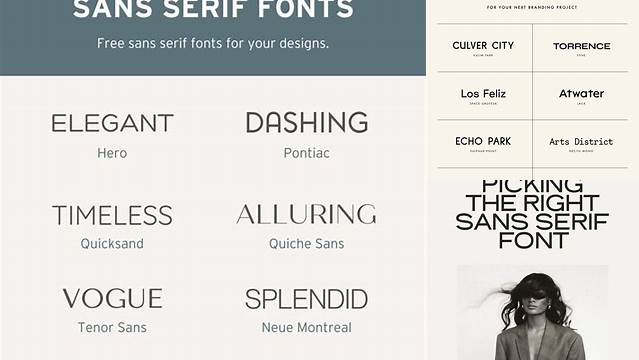
Free Sans Serif Fonts: Your Ultimate Guide
Hey guys! Are you looking to jazz up your designs with some fresh fonts? Then you're in the right place! We're diving deep into the world of free sans serif fonts, the unsung heroes of the typography world. They're clean, versatile, and perfect for almost any project you can imagine. From websites and presentations to logos and print materials, a good sans serif font can make all the difference. Let's get this party started and explore everything you need to know!
Why Sans Serif? Unveiling the Power of Modern Typography
So, why all the hype about sans serif fonts? Well, for starters, theyâre incredibly modern and sleek. Unlike their serif cousins (think fonts with those little decorative strokes at the ends of letters), sans serifs boast a clean, straightforward look. This makes them super readable, especially on screens. In today's digital age, that's a HUGE deal. Think about it: how often do you scroll through websites, read emails, or check your social media? The readability of the font directly impacts the user experience. A cluttered, hard-to-read font will send people running, while a clear, concise sans serif will keep them engaged.
Sans serif fonts also scream versatility. They work beautifully in a wide range of applications. Need a font for a minimalist logo? A sans serif is your best friend. Creating a website with a modern aesthetic? Sans serif again. Designing a presentation that needs to be easily digestible? You guessed it! Their adaptability makes them a go-to choice for designers of all stripes. But the beauty of sans serif fonts goes beyond just aesthetics and usefulness. These fonts are often seen as more approachable and friendly. Because of their lack of serifs, they tend to appear less formal, making them ideal for brands that want to connect with their audience on a more personal level. They are about simplicity, clarity, and modernity. A good sans serif font will never let you down whether you're working on a corporate identity, a marketing campaign, or even just a personal project, and this makes them incredibly valuable. When used correctly, these fonts can instantly make your message feel more contemporary and user-friendly, helping you connect with your audience. But there is also something to be said about the flexibility of them, they can be styled with bold, italics, or other text effects and still be very easy to read.
Top Free Sans Serif Fonts to Elevate Your Designs
Alright, now for the good stuff! Let's explore some of the best free sans serif fonts out there. These fonts are not only free but also incredibly stylish and versatile, making them perfect for a variety of projects. We'll cover some of the most popular and reliable options, giving you the lowdown on what makes each one special. Let's get to it!
Open Sans
Open Sans is a true titan in the font world. Designed by Steve Matteson, this font is Google's official font, meaning you'll see it everywhere. Itâs known for its friendly and open appearance, making it a great choice for body text. Its excellent readability makes it ideal for websites, documents, and apps. The font is also highly versatile; it can be used for both headlines and smaller text sizes. The curves are very simple and clear. This also means that the shapes are neutral enough to be used in conjunction with a wide range of design styles. Its popularity has only grown over time, making it one of the best options to use. Open Sans is one of the most ubiquitous sans serif fonts out there, and for good reason. Its clean and modern appearance makes it perfect for a wide range of applications, from websites and apps to print materials. The font is highly readable, even at smaller sizes, and its simple design makes it incredibly versatile. You can't go wrong with this one, guys!
Lato
Designed by Ćukasz Dziedzic, Lato has a warm and friendly feel. It features semi-rounded letterforms that create a sense of harmony and balance. Lato is a fantastic option for branding and user interfaces. The semi-rounded structure of each letter gives Lato a friendly vibe. It's a solid choice if you're aiming for a modern yet approachable feel. This font is available in a wide range of weights and styles. This gives you plenty of creative freedom. It's very clean and simple. The font is also very versatile, making it suitable for almost all types of projects. Whether it's a website, logo, or print materials, this font will meet your demands. The popularity of this font is a testament to its great design, usability, and adaptability. Its versatility makes it a perfect fit for designers and companies across industries.
Montserrat
Inspired by the architecture of the Montserrat neighborhood in Buenos Aires, this font is both stylish and functional. Its geometric design gives it a distinctive and modern feel, making it perfect for headlines and display purposes. The designer, Julieta Ulanovsky, drew inspiration from the historical signs of the neighborhood. The font has a sophisticated and modern look, making it ideal for projects that require a touch of elegance. Its clean and geometric design is also great for headings. Montserrat's versatility extends to various design projects, whether creating a website or print materials. It's been a popular pick among designers for many years. Because itâs a classic for good reason! The design is easy to read, looks great, and works in a wide variety of design applications.
Roboto
Developed by Google, Roboto is another workhorse that you can find everywhere. It's known for its mechanical yet friendly appearance. Itâs a solid choice for readability. It is designed to be very readable. The font is specifically designed for a great user experience. Roboto features a modern look, which makes it a great pick for applications that want to stay current with the latest trends. With its clean and simple appearance, it's a great font to use when designing websites and mobile apps, making your content stand out! Roboto is a favorite because of its readability and its adaptability. It's an excellent choice for any project where clarity is crucial.
Nunito
This is a well-balanced sans serif font, with rounded terminals, which create a friendly and welcoming impression. The design is clean, and the shapes are geometric, making it ideal for both titles and body text. You'll find that Nunito is also very versatile. The font's design and adaptability make it a good choice for a wide range of projects, from websites and apps to print materials. Nunito has a very pleasant and modern look, making it a great pick for projects that need a touch of elegance. With its clean and simple appearance, it's a great font to use when designing websites and mobile apps, making your content stand out! Nunito is a favorite because of its readability and its adaptability. It's an excellent choice for any project where clarity is crucial.
Other Great Options
There are tons of other free sans serif fonts out there, each with its unique personality. Check out Raleway, Poppins, and Source Sans Pro. Each of these fonts offers something unique, so take some time to explore and find the perfect match for your project. Experimenting with different fonts is part of the fun, so don't be afraid to try something new!
How to Choose the Right Sans Serif Font
Choosing the right sans serif font can feel overwhelming, but it doesnât have to be! Here are some tips to help you make the perfect selection for your next project:
- Consider Your Brand: What's the overall tone of your brand? Is it modern and minimalist, or more playful and approachable? The font should align with your brandâs personality.
- Readability is Key: Always prioritize readability, especially for body text. Make sure the font is easy to read at various sizes and on different devices.
- Test It Out: Try out the font in your design. See how it looks in different sizes, weights, and styles. This helps you visualize the font in action.
- Look for Versatility: Choose a font that offers multiple weights and styles. This gives you more creative flexibility.
Where to Download Free Sans Serif Fonts
So, where do you actually get your hands on these fantastic free sans serif fonts? Fortunately, there are tons of great resources out there! Here are some of the best places to find them:
- Google Fonts: This is the go-to resource for free, open-source fonts. They're easy to download and use on your website. It is a great place to find a good font. This is probably the best place to find a font!
- Font Squirrel: Font Squirrel offers a curated collection of free fonts, many of which are commercially licensed.
- DaFont: DaFont has a vast collection of fonts, including tons of sans serif options. Be sure to check the license before you use them. You can find anything you want there.
- Behance and Dribbble: These platforms are great for discovering talented designers who often share their work and free font downloads.
Tips for Using Sans Serif Fonts Effectively
Once youâve chosen your free sans serif fonts, here are a few tips to help you make the most of them:
- Pairing Fonts: Don't be afraid to pair different fonts! Choose a sans serif for headlines and a contrasting serif or another sans serif for body text.
- Hierarchy: Use different weights and sizes to create a clear visual hierarchy. This helps guide the reader's eye through your content.
- Spacing: Pay attention to the spacing between letters (kerning) and lines (leading). Good spacing enhances readability.
- Colors: Experiment with different colors to see which ones complement your font choices and design style.
Conclusion: Embrace the Simplicity of Free Sans Serif Fonts
So, there you have it, guys! The world of free sans serif fonts is vast and exciting. We've covered some of the best options, how to choose them, and where to find them. Now go forth and start designing! Remember, the right font can make all the difference in your designs. Happy designing!